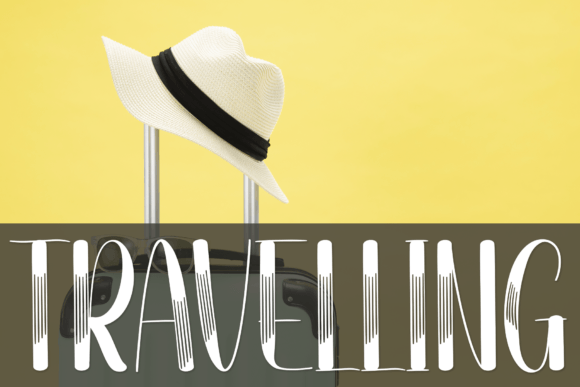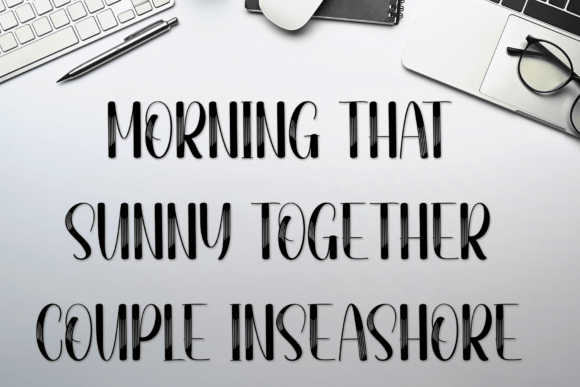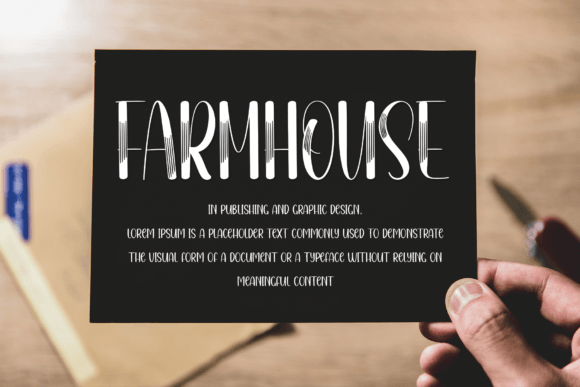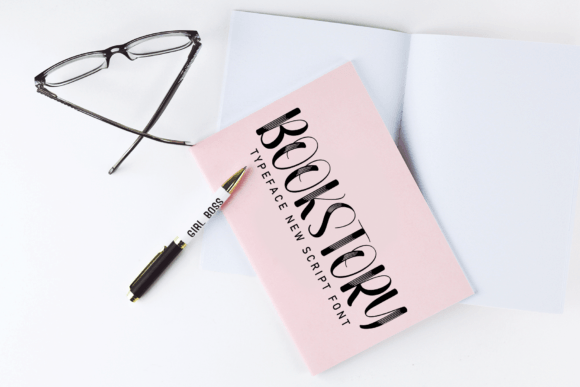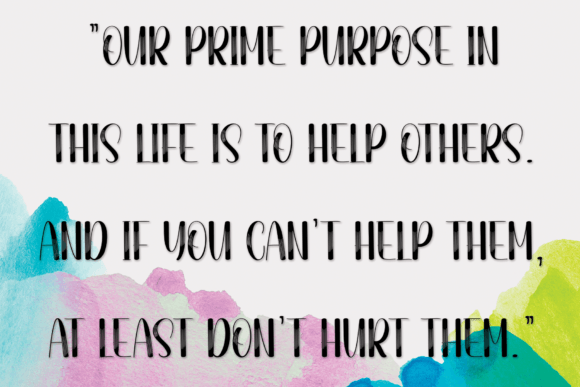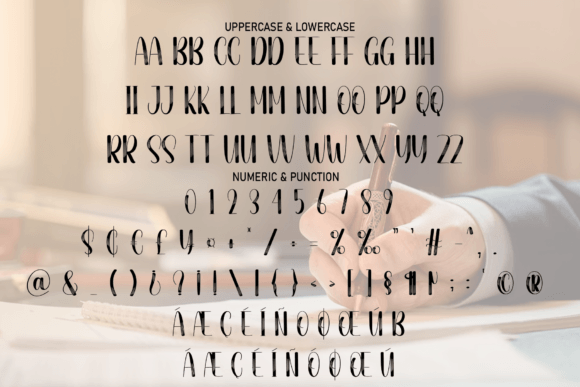
Introducing Hand Scratch Font: A Playful and Unique Typeface for Creative Projects
Are you tired of using the same old fonts for your design projects? Look no further than Hand Scratch, a bright and fun typeface that’s perfect for adding a personal touch to your creations. With its strong personality and unique appearance, Hand Scratch is ideal for display projects that require a bit of flair. In this article, we’ll take a closer look at the Hand Scratch font and explore its many uses, from branding and logos to packaging and more.
A Font with Personality
Hand Scratch is a hand-drawn font that’s full of character. Its irregular lines and playful curves give it a distinctive look that’s sure to grab attention. Whether you’re designing a logo, creating a brand identity, or simply looking for a fun font to use in your craft projects, Hand Scratch is a great choice. Its unique personality shines through in every letter, making it perfect for projects that require a bit of whimsy and creativity.
Perfect for Display Projects
Hand Scratch is specifically designed for display projects, making it perfect for use in headlines, titles, and other eye-catching applications. Its bold and playful appearance ensures that it will stand out, even at large sizes. Whether you’re creating a billboard, a magazine ad, or a social media graphic, Hand Scratch is a great choice for making a statement.
Versatile and Adaptable
One of the best things about Hand Scratch is its versatility. This font can be used in a wide range of applications, from branding and logos to packaging and more. It’s perfect for creating:
- Logos and branding: Hand Scratch’s unique personality makes it a great choice for creating memorable logos and brand identities.
- Food and candy packaging: The font’s playful and fun appearance makes it perfect for use on food and candy packaging, adding a touch of whimsy to your products.
- Signs and posters: Hand Scratch is a great choice for creating eye-catching signs and posters that will grab attention.
- Craft projects: Whether you’re creating handmade cards, gift tags, or other craft projects, Hand Scratch is a great font to use.
Why Choose Hand Scratch?
So why choose Hand Scratch over other fonts? Here are just a few reasons:
- Unique appearance: Hand Scratch has a distinctive look that’s sure to set your projects apart.
- Playful personality: The font’s playful personality makes it perfect for projects that require a bit of fun and whimsy.
- Versatility: Hand Scratch can be used in a wide range of applications, from branding and logos to packaging and more.
- Ease of use: The font is easy to read and use, making it perfect for designers and crafters of all skill levels.
Tips for Using Hand Scratch
Here are a few tips for getting the most out of Hand Scratch:
- Use it sparingly: Because of its bold and playful appearance, Hand Scratch is best used sparingly. Use it for headlines and titles, and pair it with a simpler font for body text.
- Experiment with colors: Hand Scratch looks great in a variety of colors, so don’t be afraid to experiment and find the perfect hue for your project.
- Pair it with other fonts: Hand Scratch can be paired with a variety of other fonts to create a unique and interesting look.
Hand Scratch is a unique and playful font that’s perfect for designers and crafters looking to add a bit of personality to their projects. With its strong personality and versatile appearance, it’s ideal for use in a wide range of applications, from branding and logos to packaging and more. Whether you’re creating a display project or simply looking for a fun font to use in your craft projects, Hand Scratch is a great choice. So why not give it a try and see what creative possibilities it opens up?